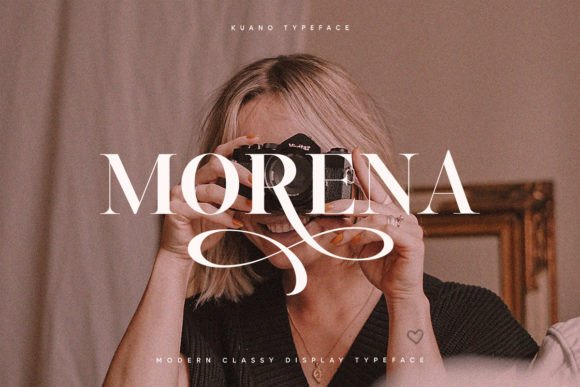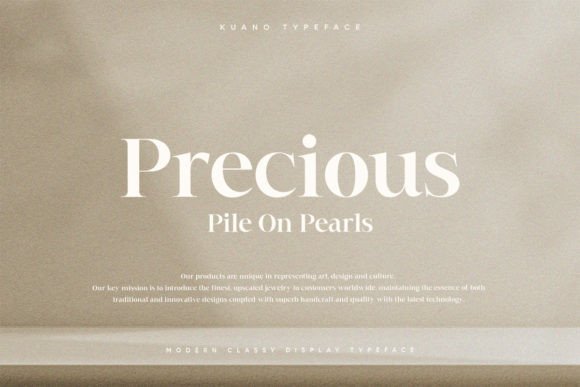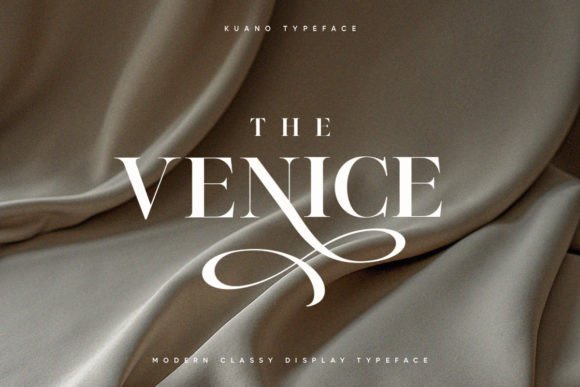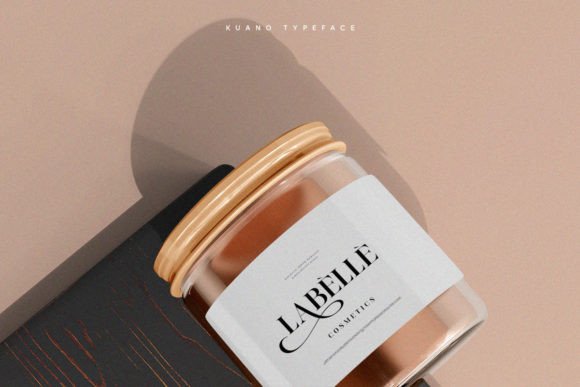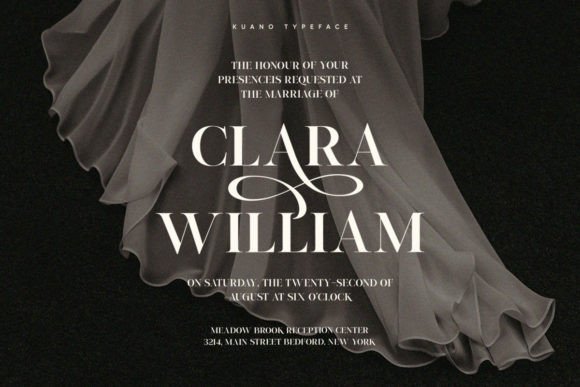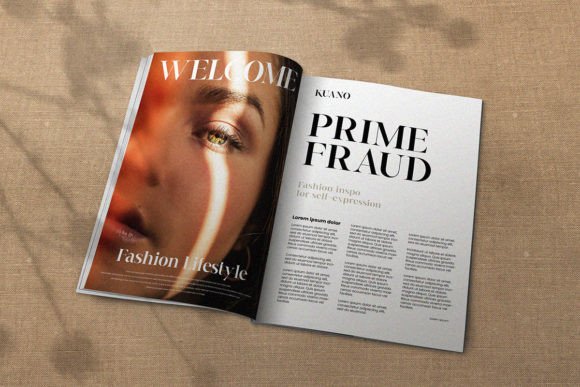
Introduction to Kuano Font
is a romantic, minimalist, and elegant serif typeface.
Its elegant aspect makes it the perfect choice when it comes to packaging design, fragrance design, titling, cosmetics design, website banners, and many more Use it in your creations and you will notice how your design stands out.